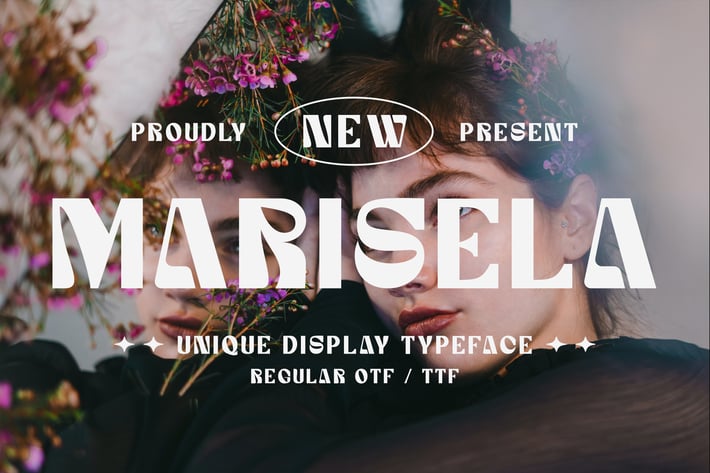
Marisela - Unique Display Typeface
Introducing "Marisela" - a unique display typeface that captivates with its distinctive personality and versatile design, offering a bold typographic statement for your projects.
With its striking letterforms and creative flair, "Marisela" stands out as a truly original typeface that adds a touch of modern sophistication to any design. Whether you're crafting branding materials, editorial layouts, posters, or digital artworks, this font brings a sense of uniqueness and character to your creations.
Embrace the creativity of "Marisela" as it effortlessly enhances your designs. With its eye-catching style and dynamic presence, this typeface allows you to make a memorable impact and stand out from the crowd.
Step into the world of bold typography with "Marisela" and let your designs shine with its distinctive and captivating charm.
– Lowercase
– Ligature
– Alternate
– Multilingual Support
With its striking letterforms and creative flair, "Marisela" stands out as a truly original typeface that adds a touch of modern sophistication to any design. Whether you're crafting branding materials, editorial layouts, posters, or digital artworks, this font brings a sense of uniqueness and character to your creations.
Embrace the creativity of "Marisela" as it effortlessly enhances your designs. With its eye-catching style and dynamic presence, this typeface allows you to make a memorable impact and stand out from the crowd.
Step into the world of bold typography with "Marisela" and let your designs shine with its distinctive and captivating charm.
– Lowercase
– Ligature
– Alternate
– Multilingual Support